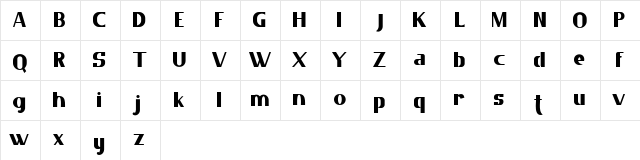
Agites FREE Regular
Agites FREE offers clean, dependable letterforms without strong stylistic allegiance, making it a practical choice for designers who need flexibility.